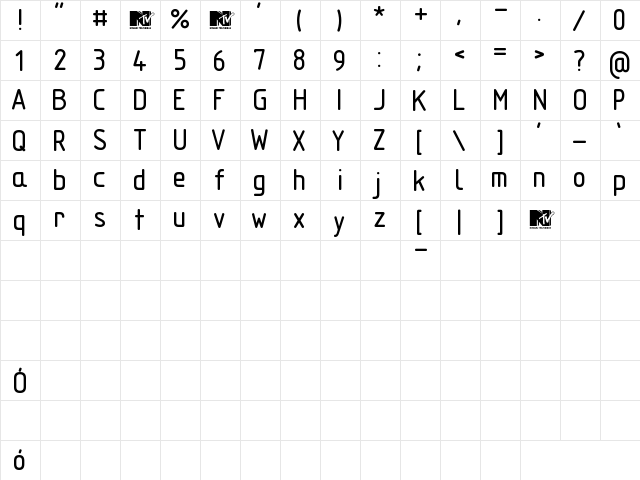
TechnicznaPomocRound Regular
Design Context for TechnicznaPomocRound Typeface
TechnicznaPomocRound channels digital-age aesthetics through its sharp, structured letterforms — ideal for brands that want to signal innovation.